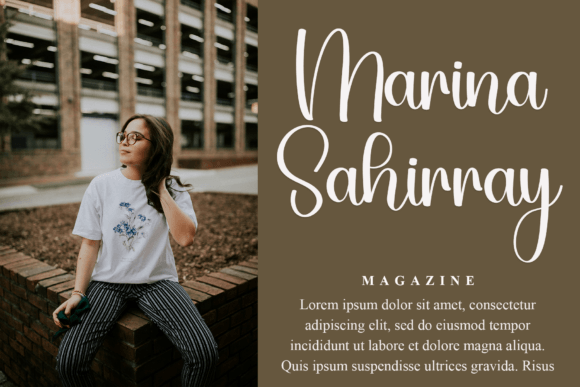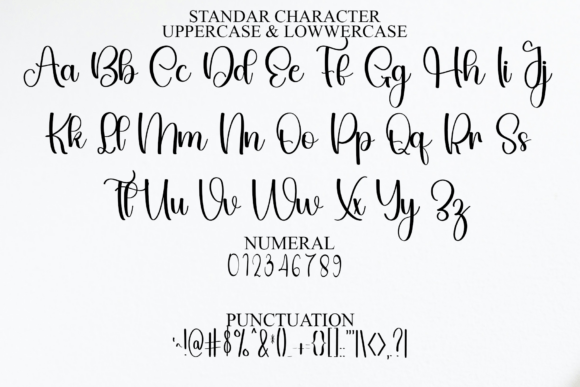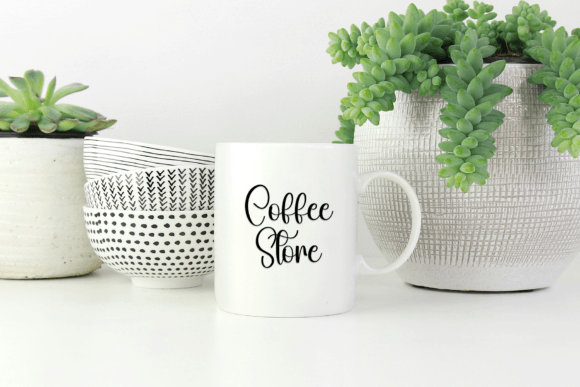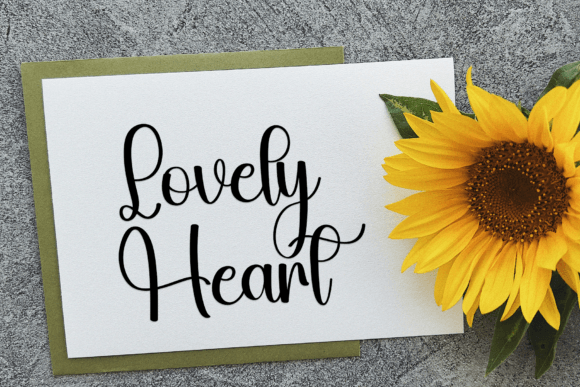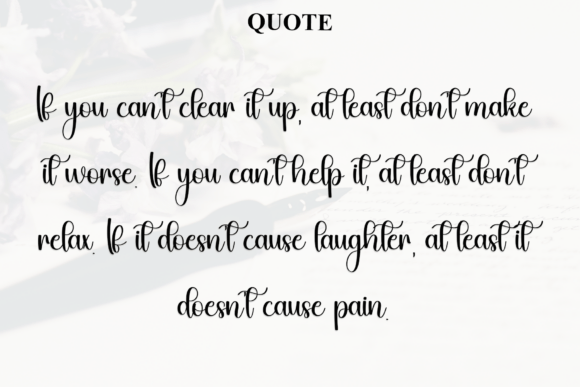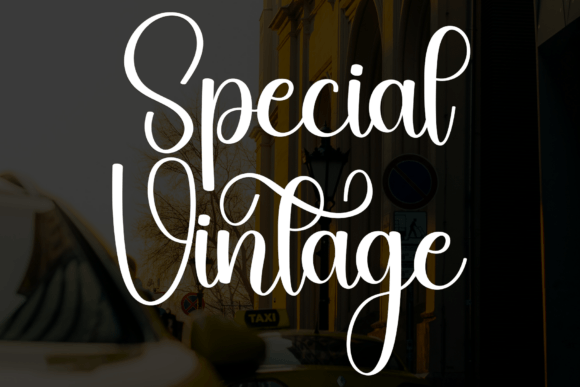
Introducing Brighting Signature Font: Elevate Your Designs with a Touch of Elegance
In the world of design, fonts play a pivotal role in conveying messages, evoking emotions, and creating lasting impressions. Among the myriad of fonts available, Brighting Signature stands out as a beacon of uniqueness and elegance. This attractive font, crafted with a soft touch and distinctive strokes, is not just a typeface but a statement piece for your designs. Whether you’re a professional designer, a crafter, or someone who loves dabbling in DIY projects, Brighting Signature is poised to become your go-to font for a variety of creative endeavors.
The Essence of Brighting Signature
Brighting Signature is more than just a font; it’s an experience. Its creation is rooted in the desire to provide a typeface that is not only visually appealing but also rich in character and meaning. Each stroke, each curve, and every detail in Brighting Signature has been meticulously designed to infuse it with a good meaning and significance for the future. This font is a blend of modernity and tradition, making it versatile enough to be used across various platforms and applications.
A Universe of Characters at Your Fingertips
One of the standout features of Brighting Signature is its extensive character set. This font doesn’t just stop at the basics; it offers a wide range of characters that can cater to diverse design needs. Whether you’re working on a handicraft project, designing a logo, or creating artistic content, Brighting Signature provides you with the tools to bring your vision to life. Its compatibility with various glyphs in both Windows and open-source applications ensures that you can use it seamlessly across different mediums.
A Natural Fit for Various Products
The natural style of Brighting Signature makes it an excellent choice for a multitude of products. Its elegance and simplicity ensure that it can enhance the aesthetic appeal of any design without overpowering it. Whether you’re designing for digital platforms, print media, or crafting handmade products, Brighting Signature can add a touch of sophistication and charm. This versatility makes it a favorite among designers and crafters who are looking for a font that can keep up with their creative demands.
Why Designers and Crafters Love Brighting Signature
Designers and crafters worldwide have fallen in love with Brighting Signature for its unique blend of style and functionality. Here are a few reasons why:
- Unique and Distinctive: In a sea of fonts, Brighting Signature stands out for its unique strokes and soft touch, making your designs instantly recognizable.
- Versatile: Its wide range of characters and compatibility with various applications make it a versatile choice for different projects.
- Elegant: The natural elegance of Brighting Signature can elevate the look of your designs, making them more appealing to a wider audience.
- Meaningful: With its good meaning and significance for the future, Brighting Signature allows designers to create content that resonates on a deeper level.
Brighting Signature is more than just a font; it’s a design companion that can help you create stunning, meaningful, and engaging content. Its unique blend of elegance, versatility, and character makes it an invaluable asset for designers and crafters. Whether you’re looking to add a touch of sophistication to your designs or seeking a font that can grow with your creative journey, Brighting Signature is an excellent choice. Embrace the beauty of Brighting Signature and let it illuminate your designs with a soft, yet distinctive touch.